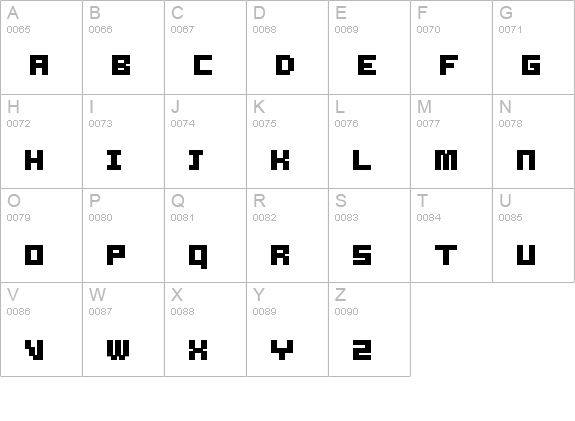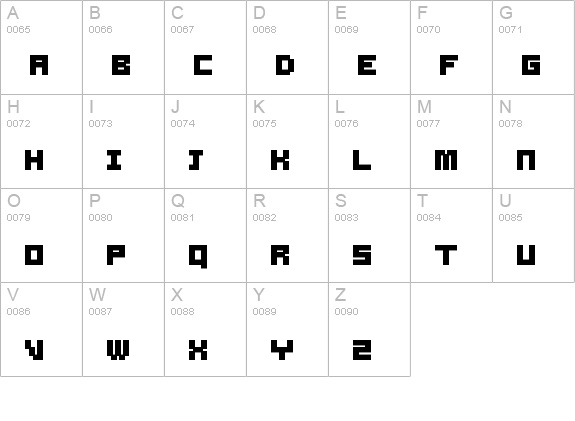
Samson Bold is a strong, high-contrast variant in the Samson typeface family \xE2\x80\x94 well suited to headlines, attention-grabbing titles, and strong calls-to-action.
Samson Bold font is a captivating and dynamic typeface that exudes strength and confidence. With its bold letterforms and sharp edges, this font is perfect for making a bold statement in any design project. Whether you're creating a powerful logo, designing eye-catching headlines, or crafting impactful posters, Samson Bold will command attention and leave a lasting impression. This font is not only visually striking, but it also offers a sense of versatility. It can effortlessly adapt to various design styles and themes, making it suitable for a wide range of applications. From modern and sleek to edgy and grunge, Samson Bold can effortlessly enhance any design with its bold personality. One of the best things about Samson Bold font is that it is freely available to download at FontsMarket.com. This means that you can easily access and utilize this powerful font in your design projects without any hassle or cost. Whether you're a professional designer or a creative enthusiast, having access to high-quality and free resources like Samson Bold font can greatly enhance your creative endeavors. So, why wait? Download Samson Bold font today from FontsMarket.com and unleash its bold power in your designs. Let this font speak volumes and captivate your audience with its strong presence and stunning aesthetics.